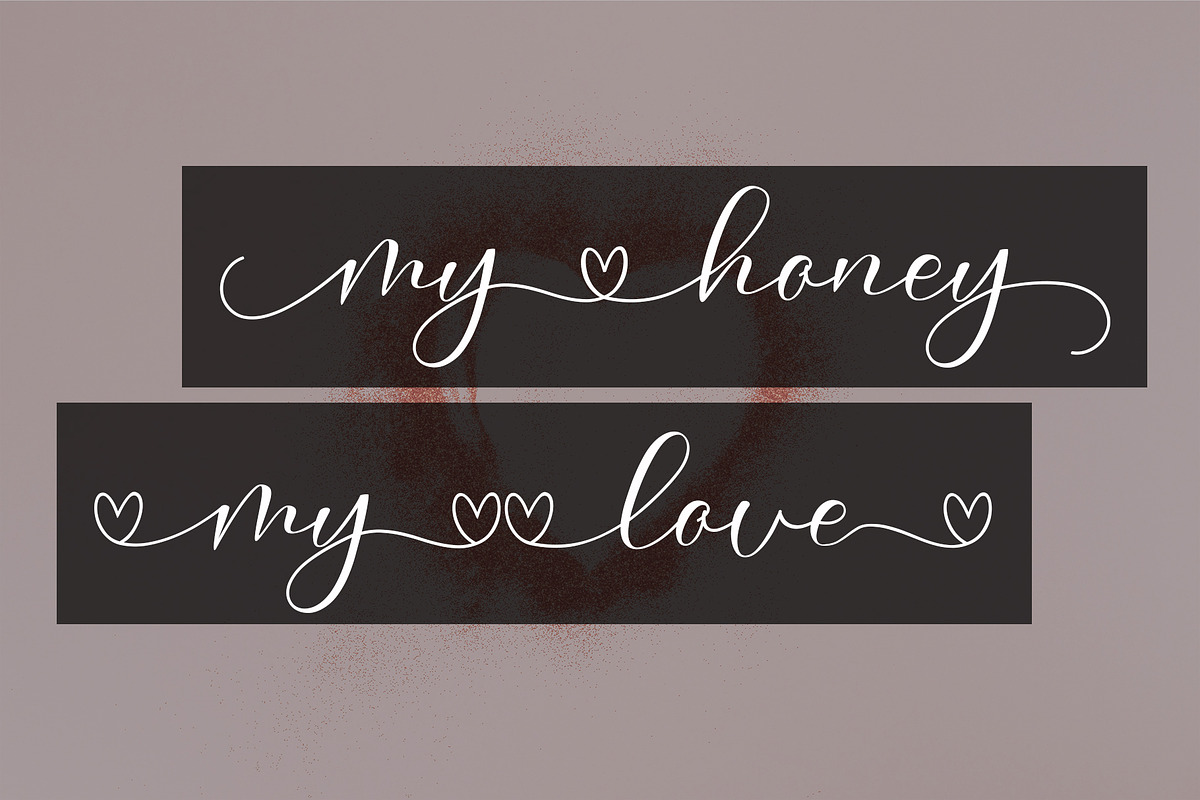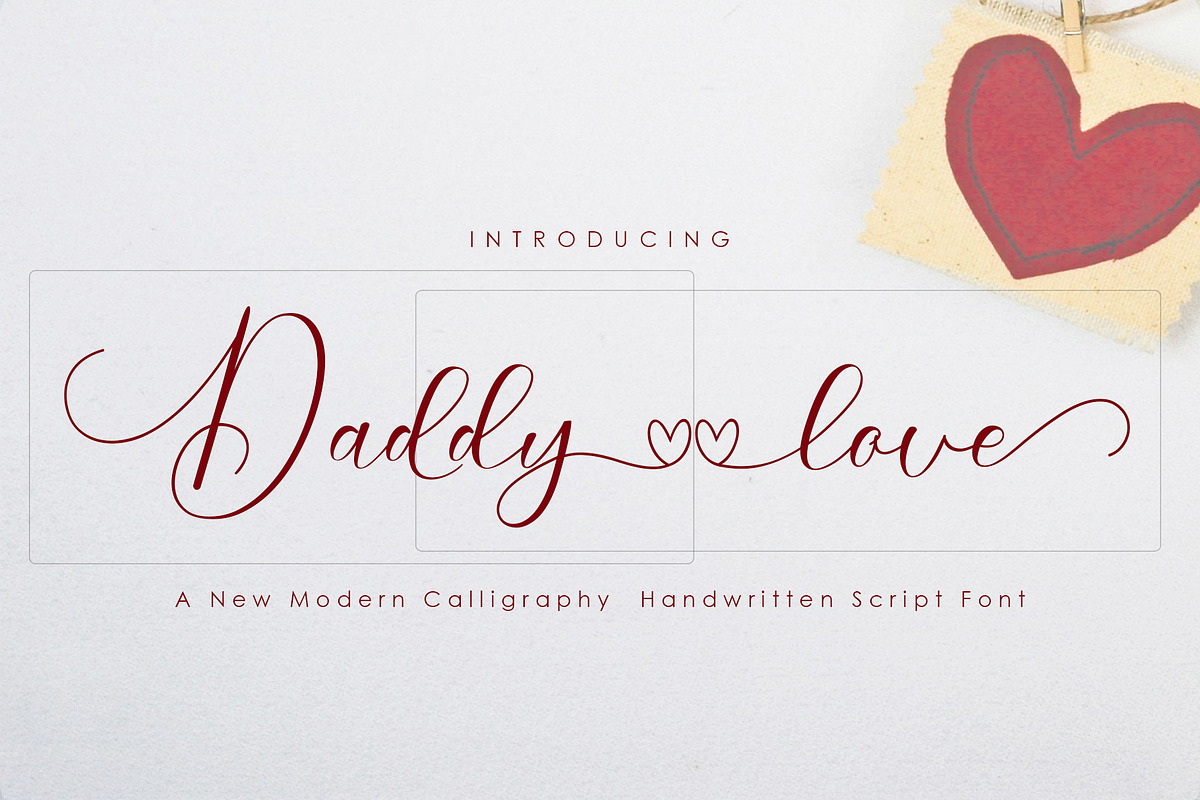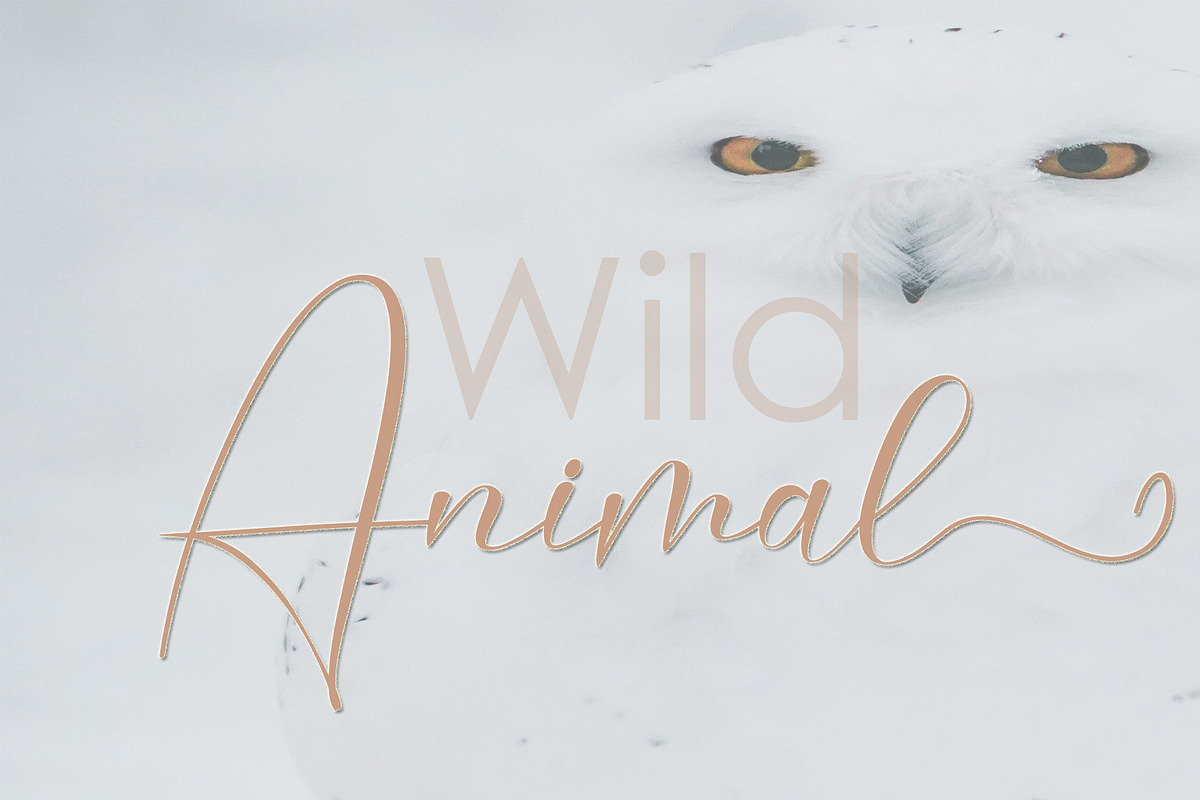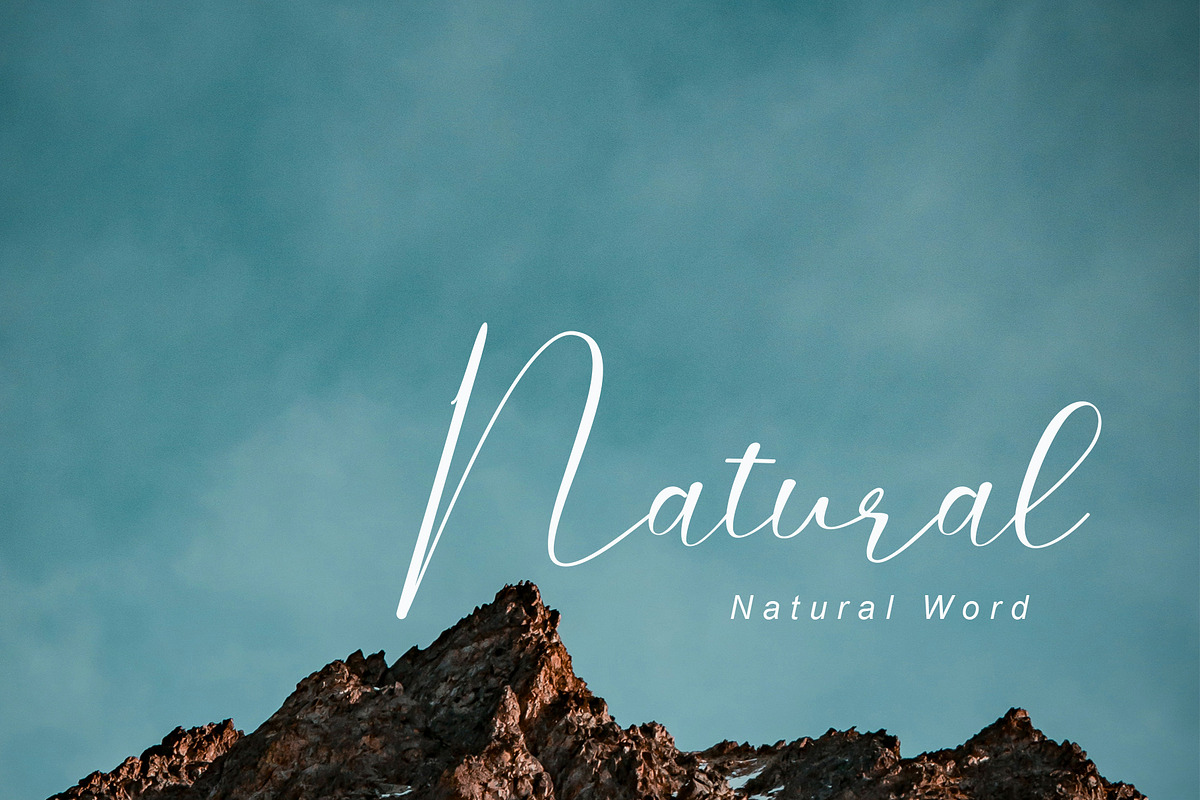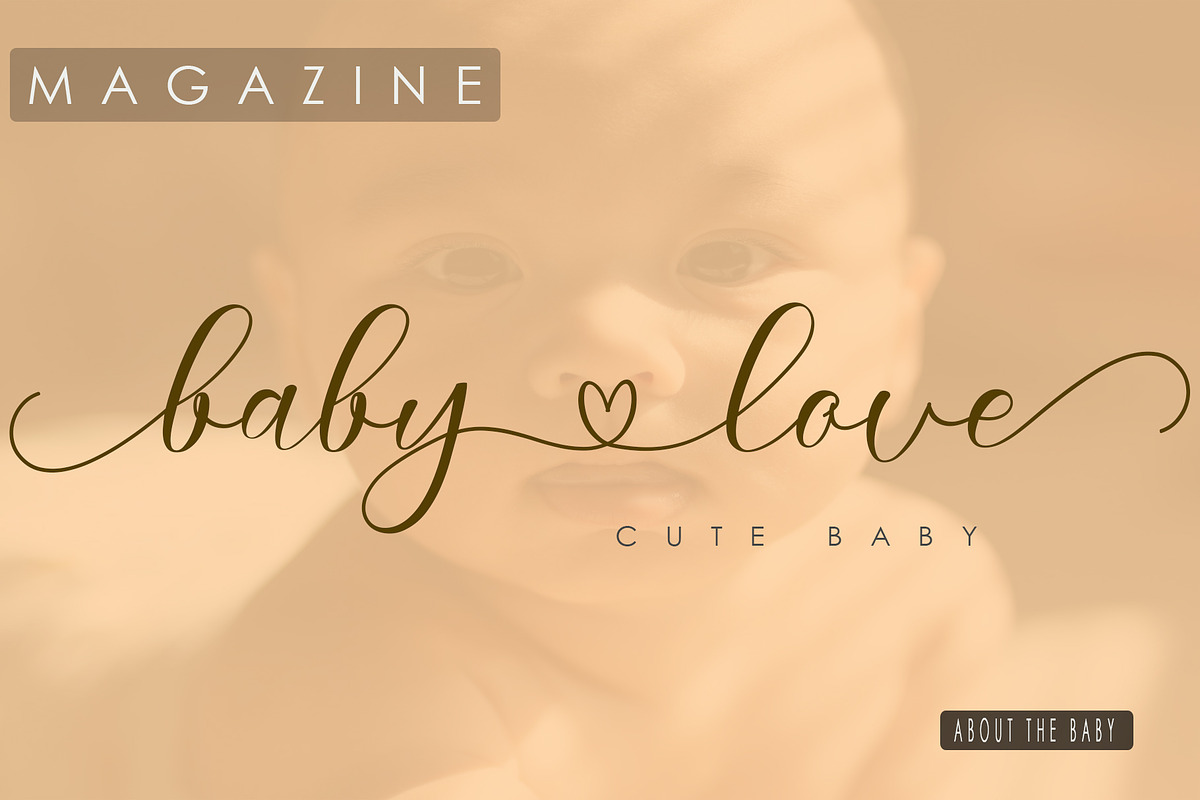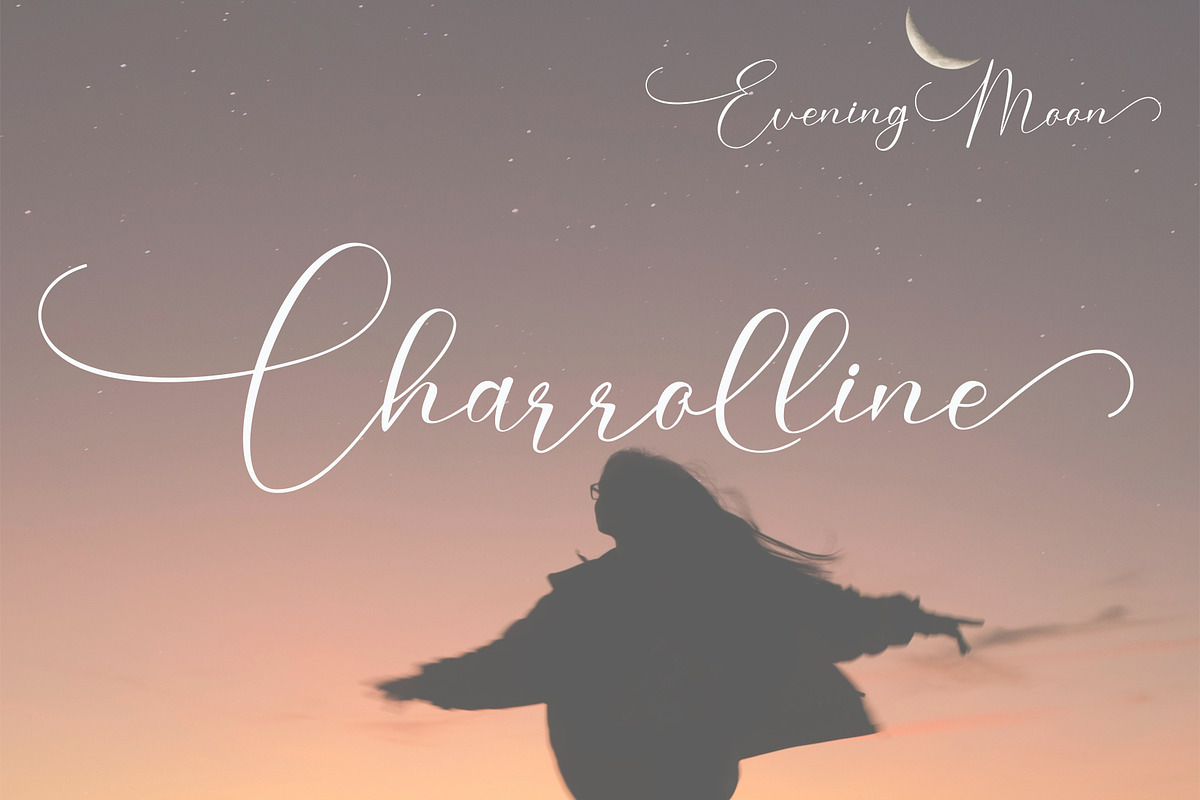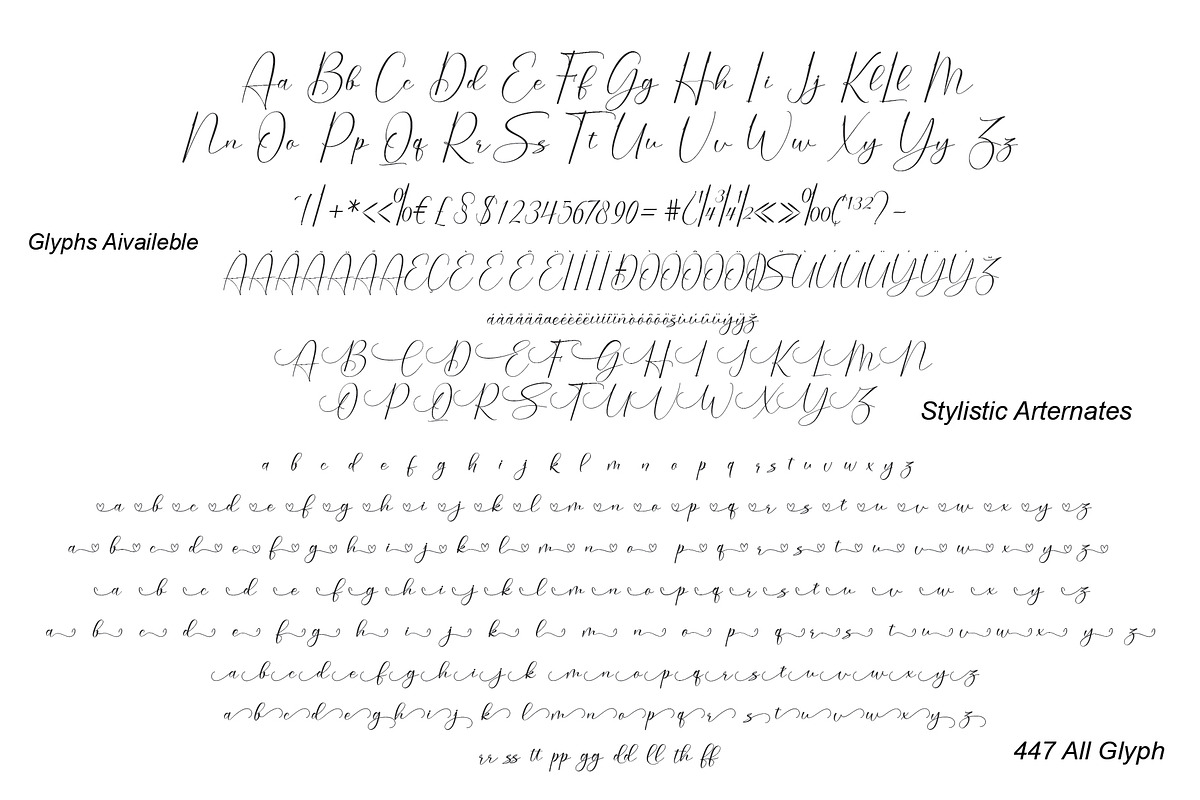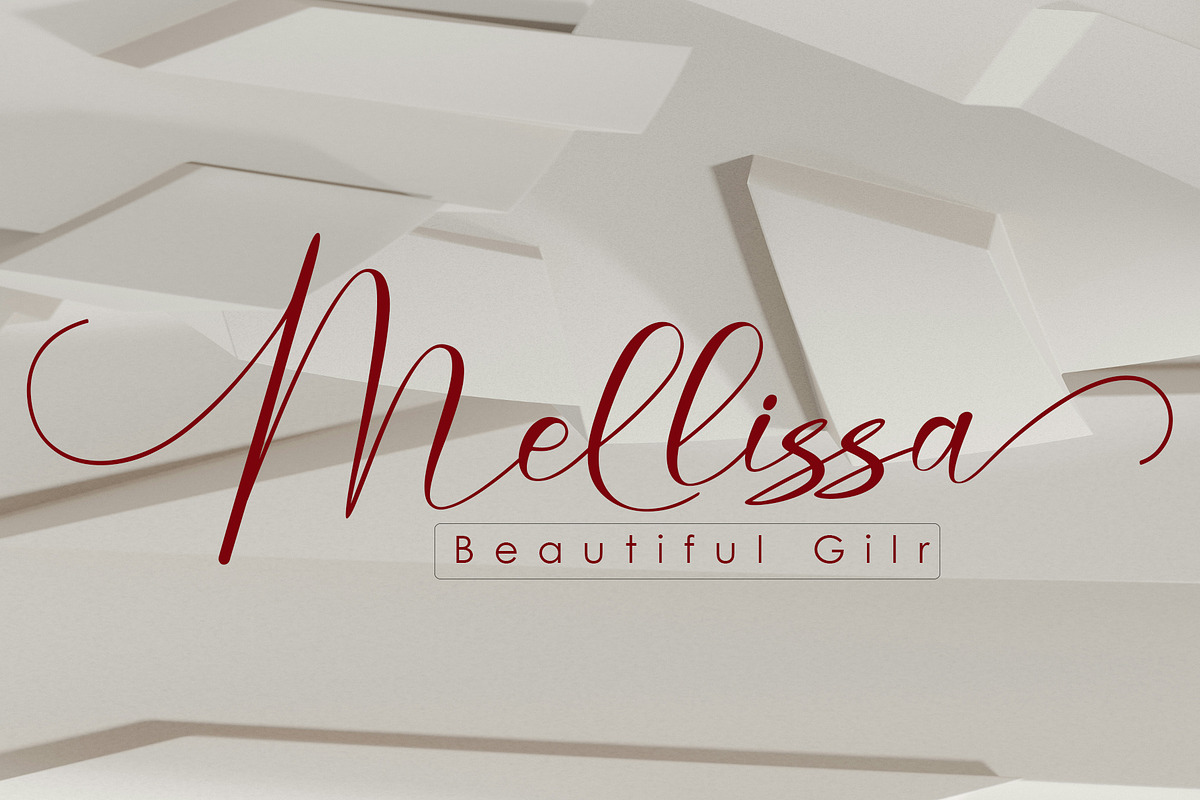
Daddy love
DaddyLove Script
DaddyLove Script Are stylish calligraphy that have a varied base line, fine lines, classic and elegant touches. Can be used for various purposes. Such as title, signature, logo, wedding invitation, t-shirt, letterhead, nameplate, label, news, poster, badge etc.
DaddyLove Script displays 447+ glyphs and 217 alternate characters. Includes initial letters and terminals, alternatives, ligatures and multiple language support. The Features of this fonts is:
- Standart ligatures